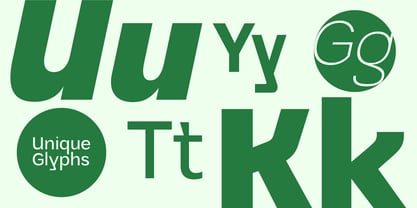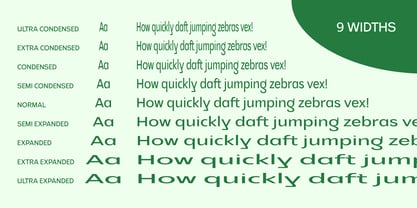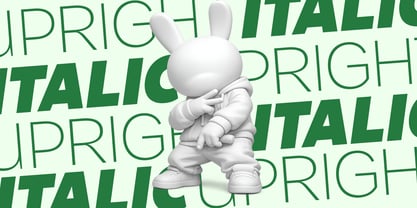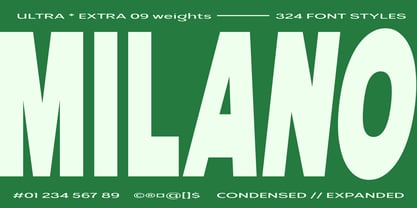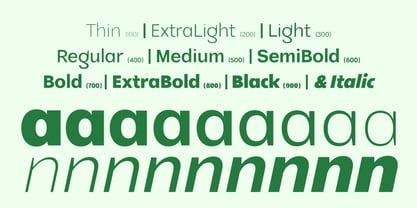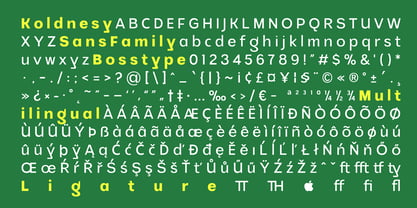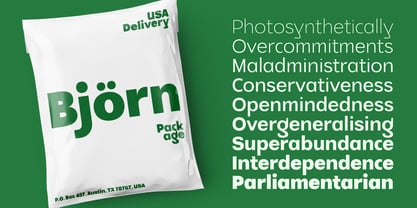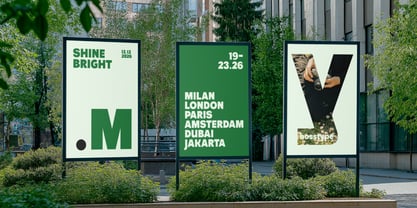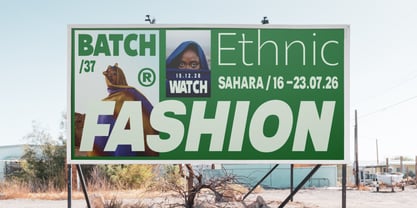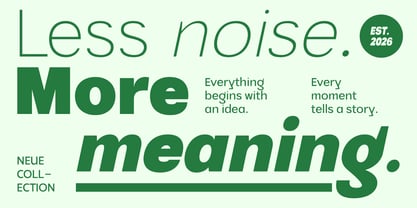
Koldnesy
Die Schriftfamilie Koldnesy wurde von Mu Fazzal entworfen und von Bosstypestudio veröffentlicht. Koldnesy enthält 217 Stile und Familienpaketoptionen. Mehr über diese Familie
Koldnesy is a modern display sans serif superfamily created for designers who need bold visual impact without sacrificing versatility. Featuring 324 carefully crafted styles, this extensive type system is built to handle everything from striking headlines to sophisticated brand identities.
Its clean geometric construction, balanced proportions, and contemporary character make Koldnesy an excellent choice for branding, editorial design, advertising, packaging, web design, and digital products. Whether you're creating a luxury logo, a modern website, or an eye-catching poster, Koldnesy delivers clarity, confidence, and consistency across every project.
The family includes a wide range of weights and matching italics, allowing you to build expressive typography with ease while maintaining a cohesive visual identity. Every style has been carefully refined for professional-quality results in both print and digital environments.
With its extensive selection of 324 fonts, Koldnesy gives designers the flexibility to create complete typographic systems from a single family.